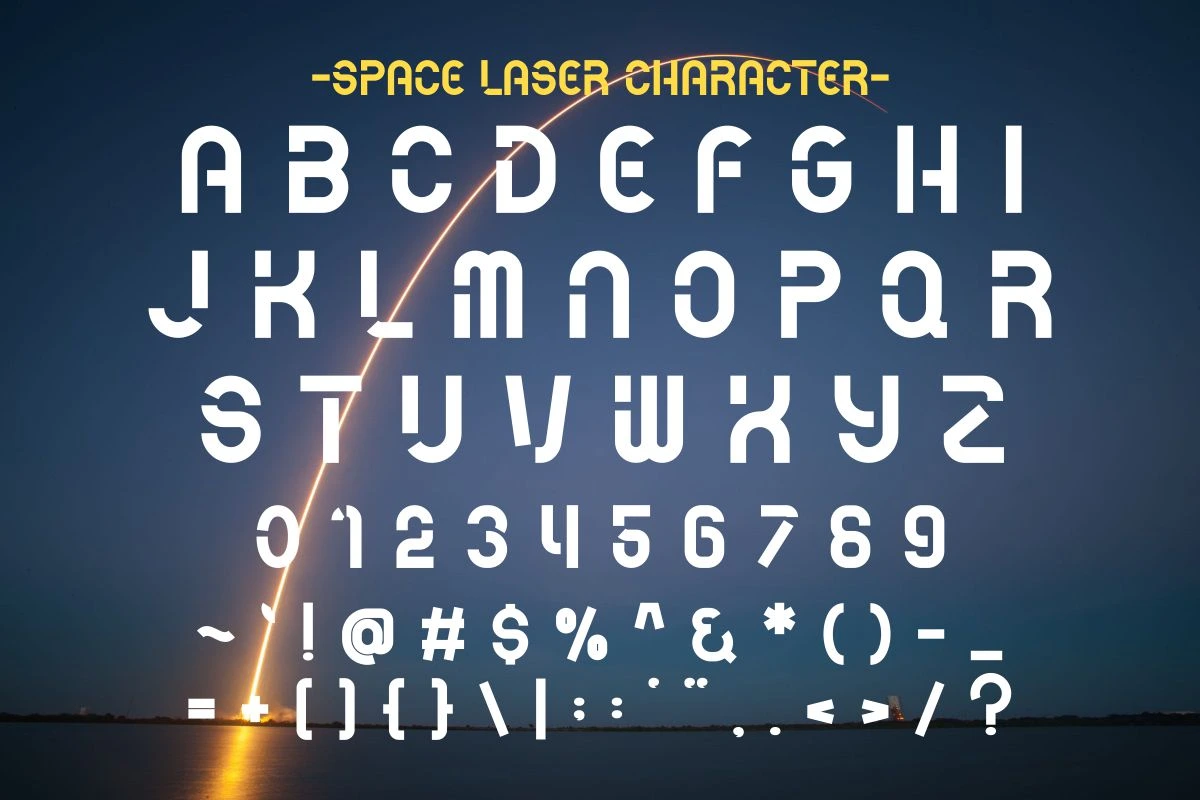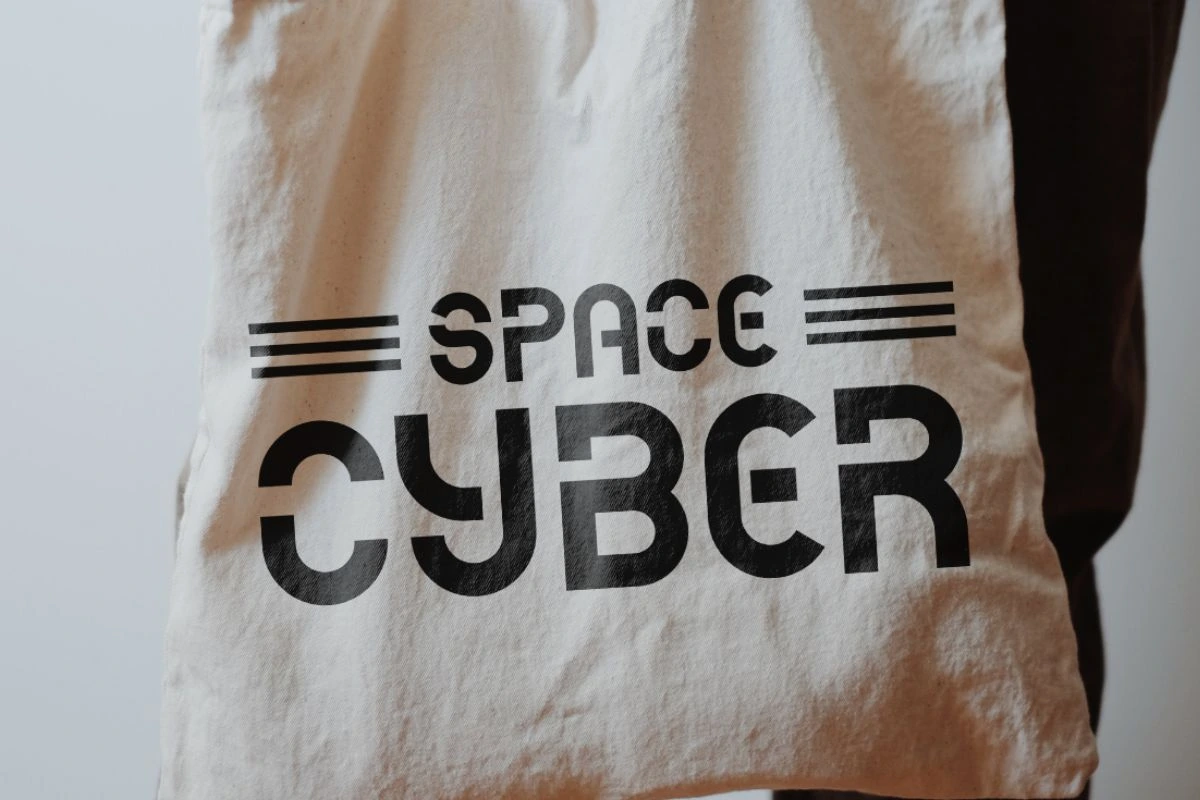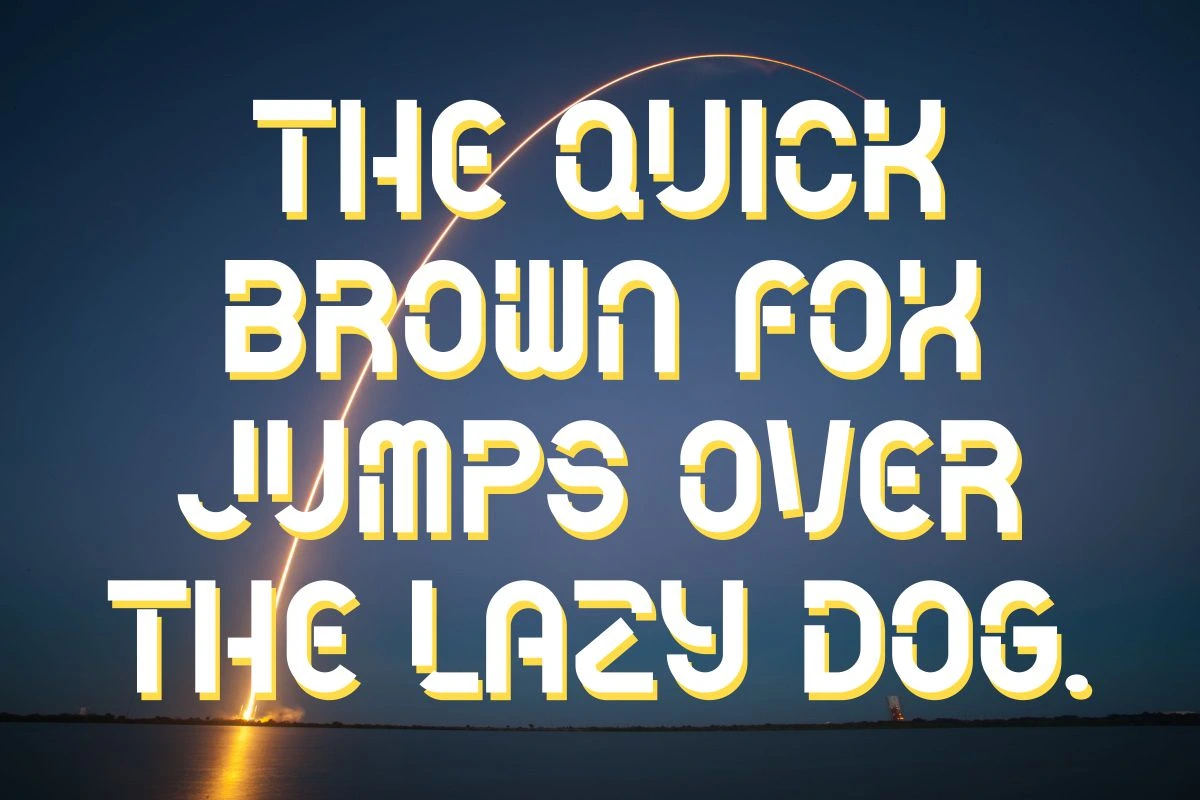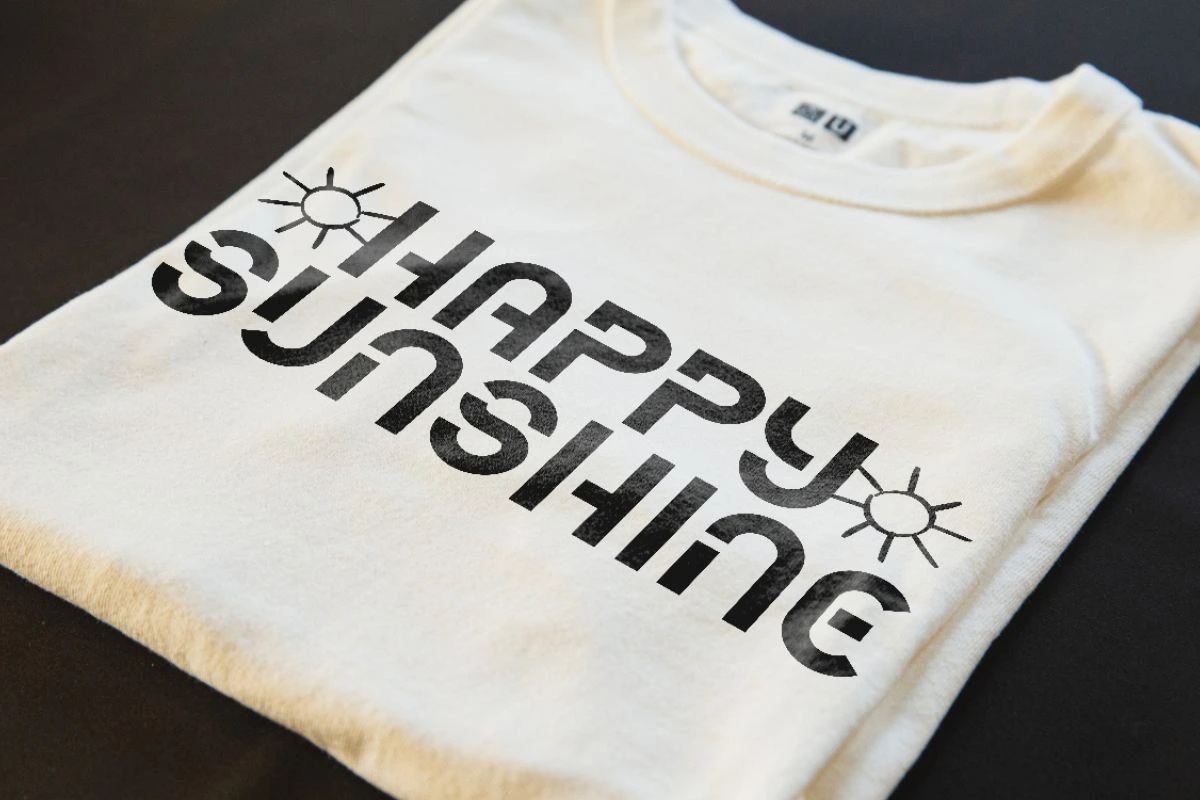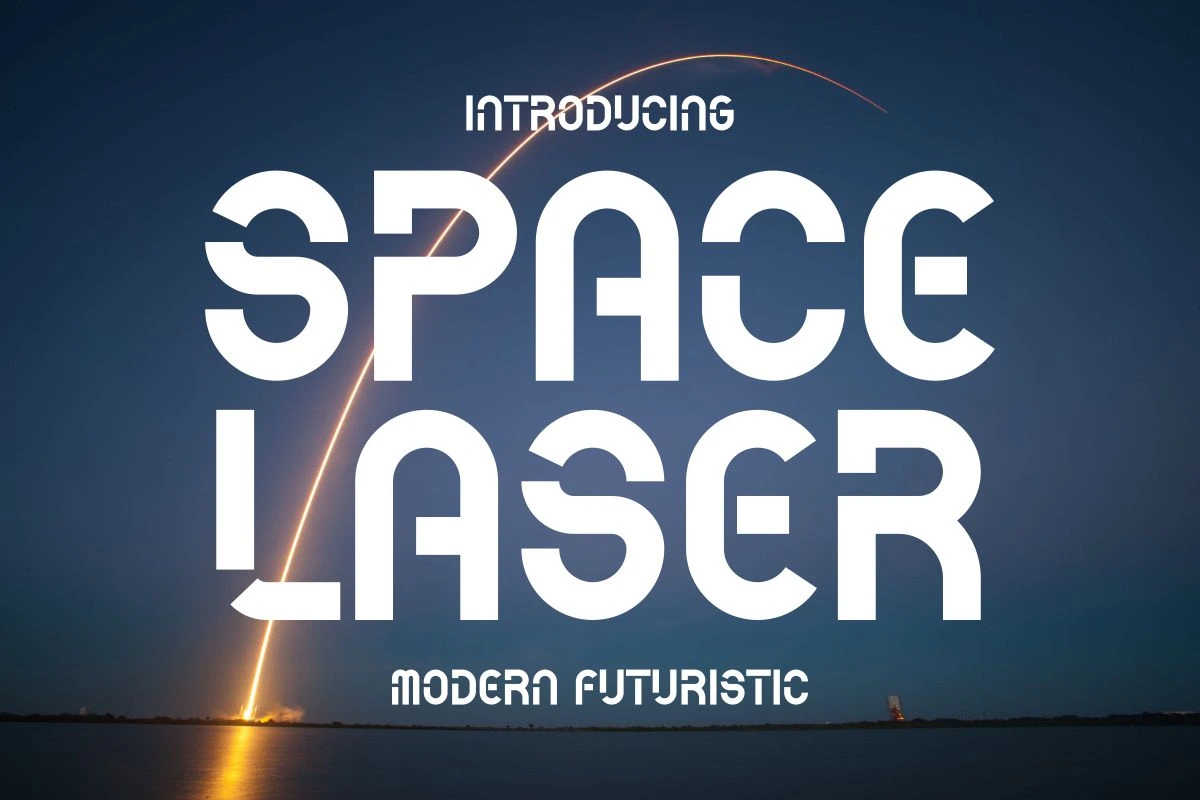
Space Laser - Modern Futuristic Font
Introducing SPACE LASER, a dynamic and bold Modern Futuristic typeface engineered for high-impact display. This font captures the essence of sleek technology and science fiction with its distinctive, rounded geometric structure and powerful presence. The unique rounded cutouts and blocky design make it perfect for titles that need a high-tech, yet approachable, aesthetic. SPACE LASER is your go-to font for designs that need to convey precision, energy, and innovation.